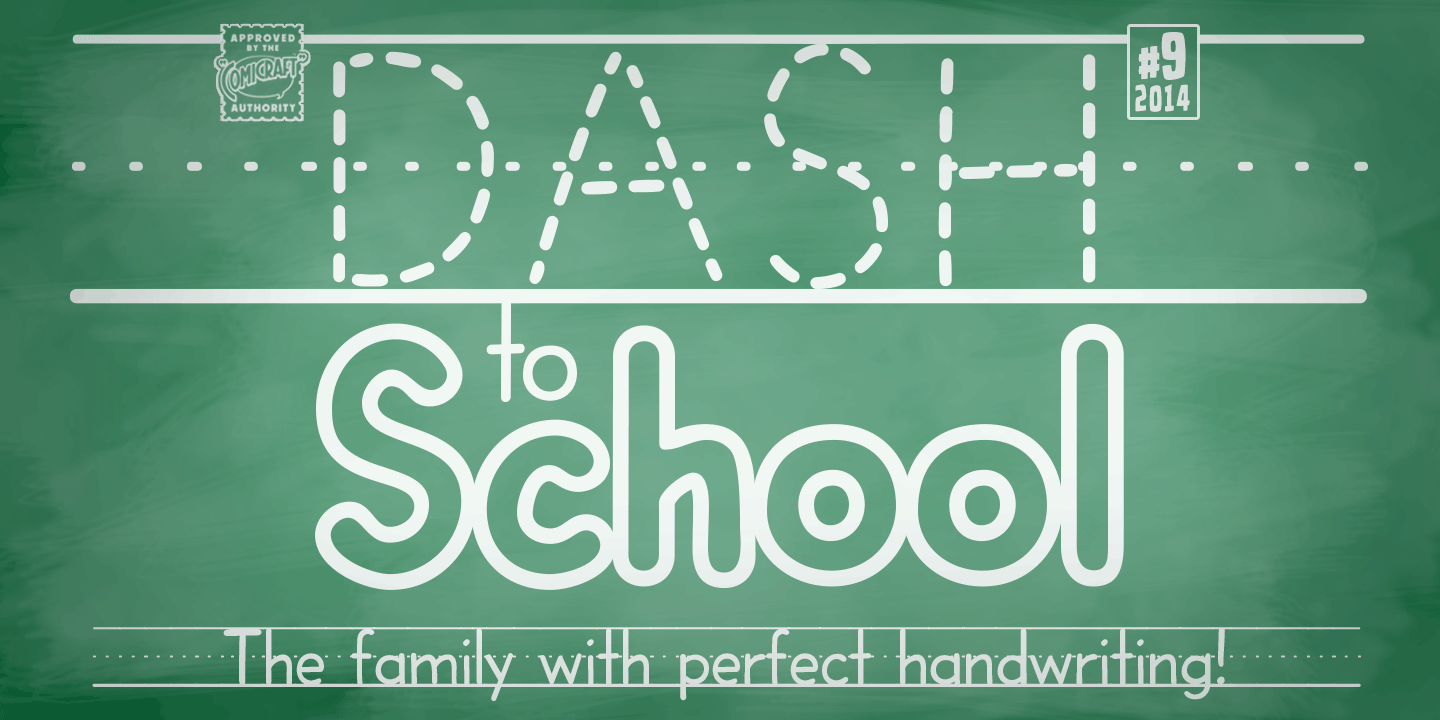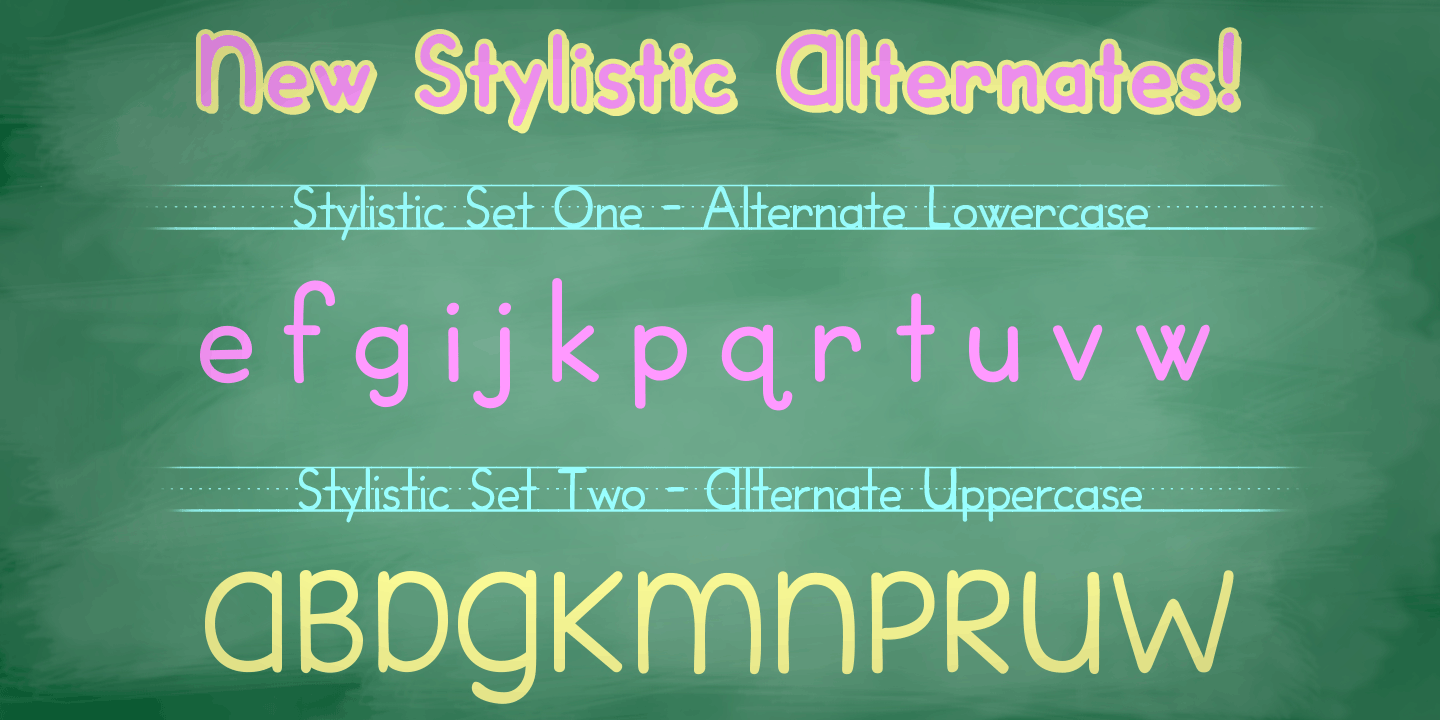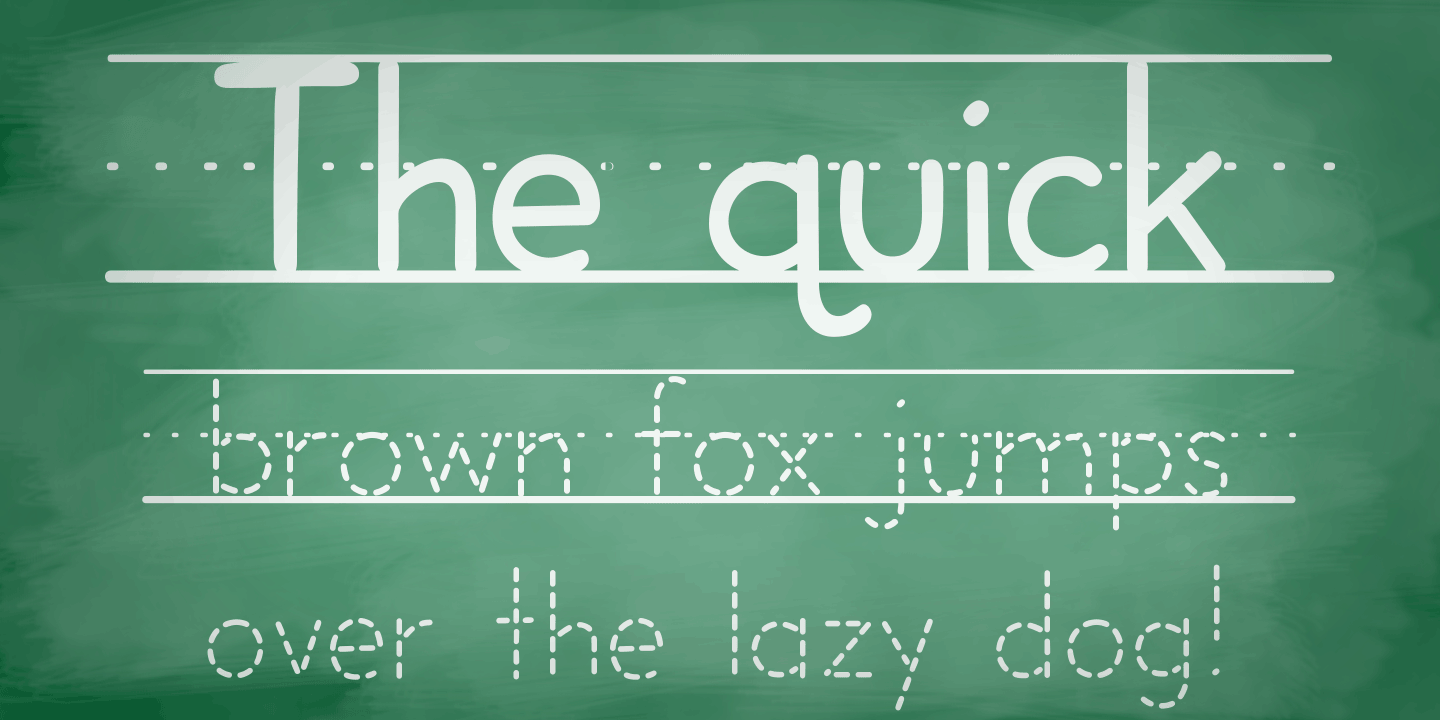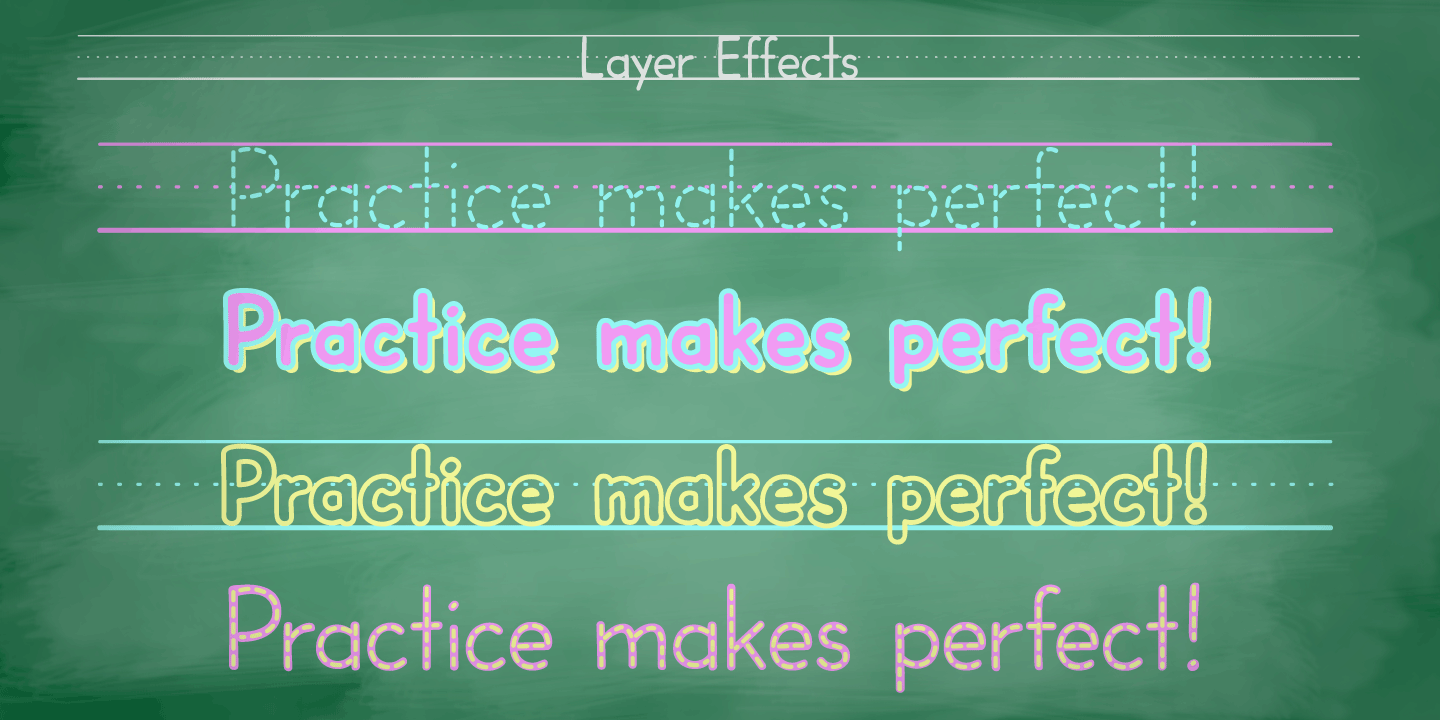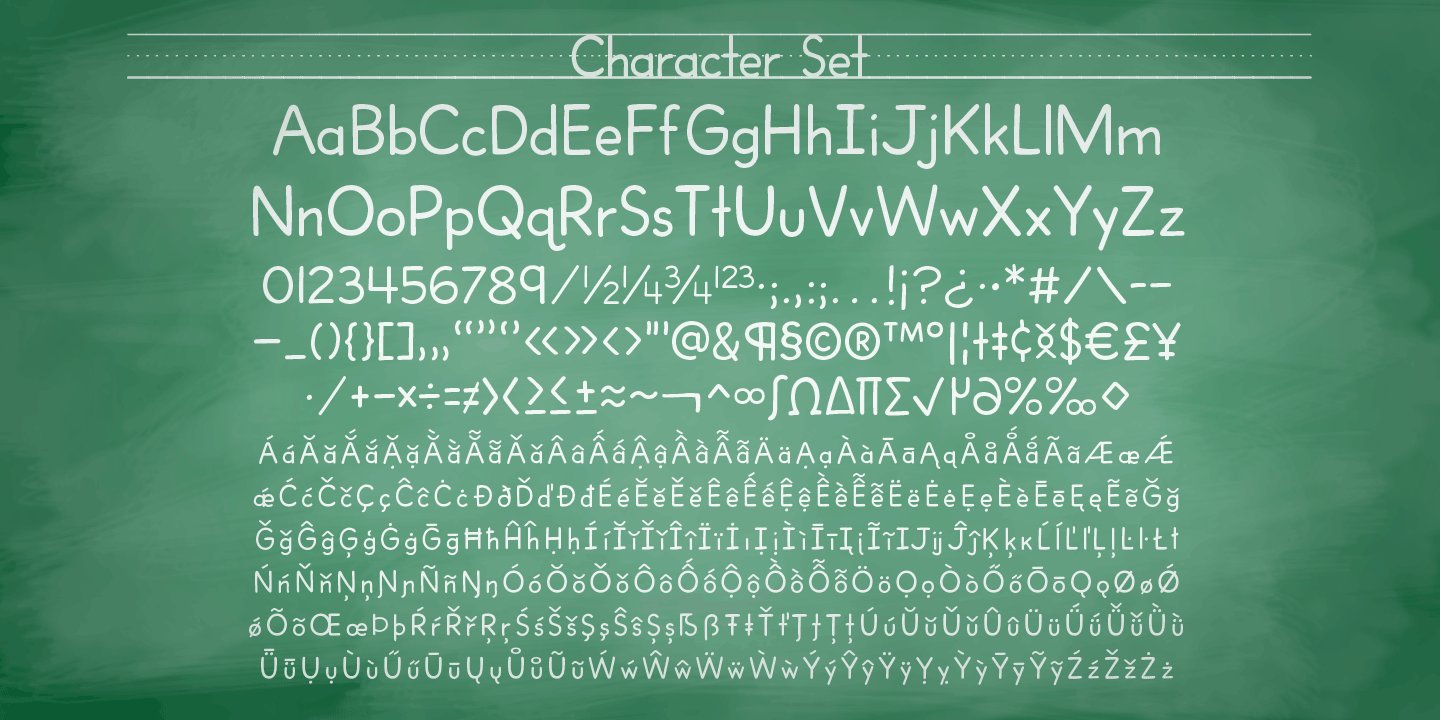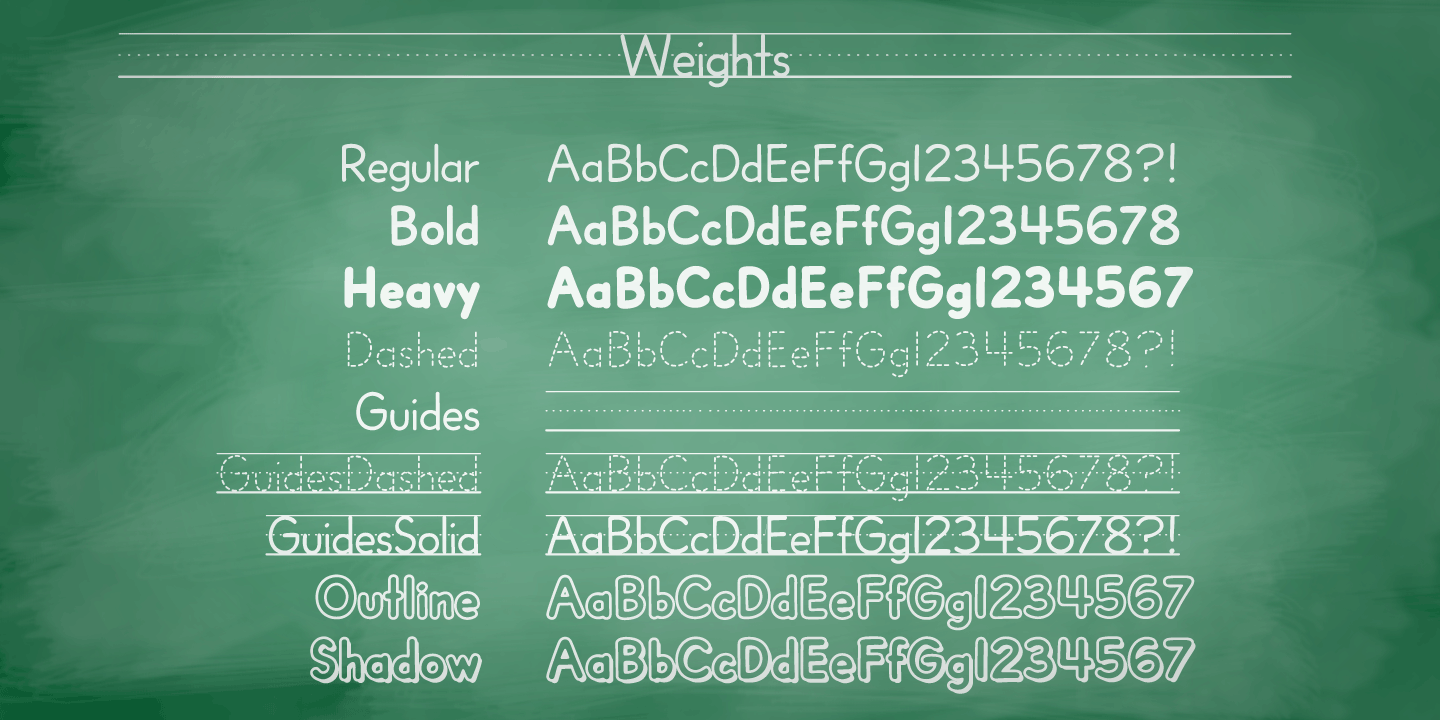
Dash to School
Font Family by Comicraft Fonts
One of the more popular pupils in the Comicraft Academy of Lettering Arts, Dash Decent, has been working on his penmanship, thanks to a grant from those lovely learning specialists at Brainzy and Education.com.
Developing learning games for Pre K, K and 1st grade, Brainzy requested a font that was fun and clean to help children learn to print. Dash to School is a revision and expansion of the Dash Decent family which features fun bold/heavy/outline and drop shadow weights for display, guidelines and dashed lines, to assist learning and understanding with a healthy dose of decency!
Dash Decent has graduated 1st Grade and with Dash to School's help, so can you.